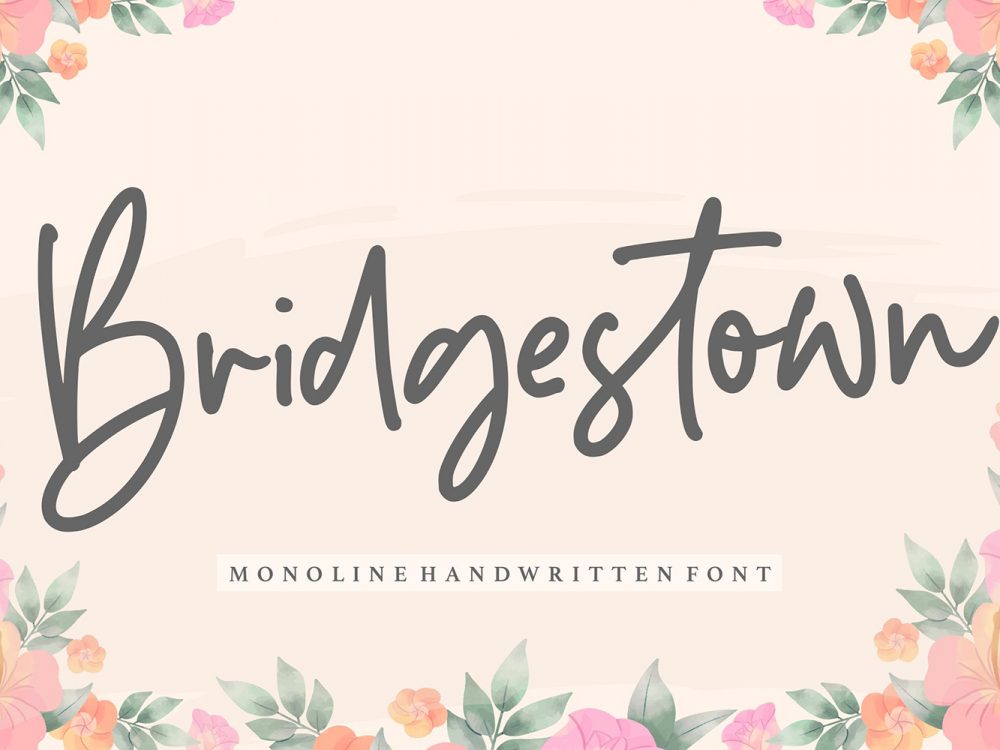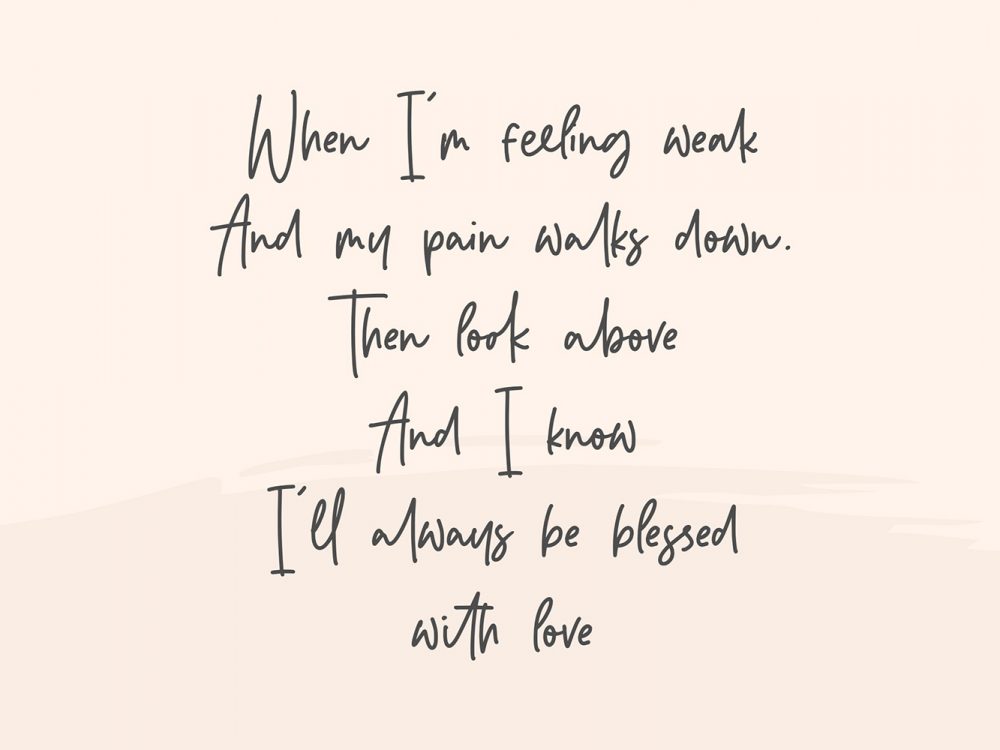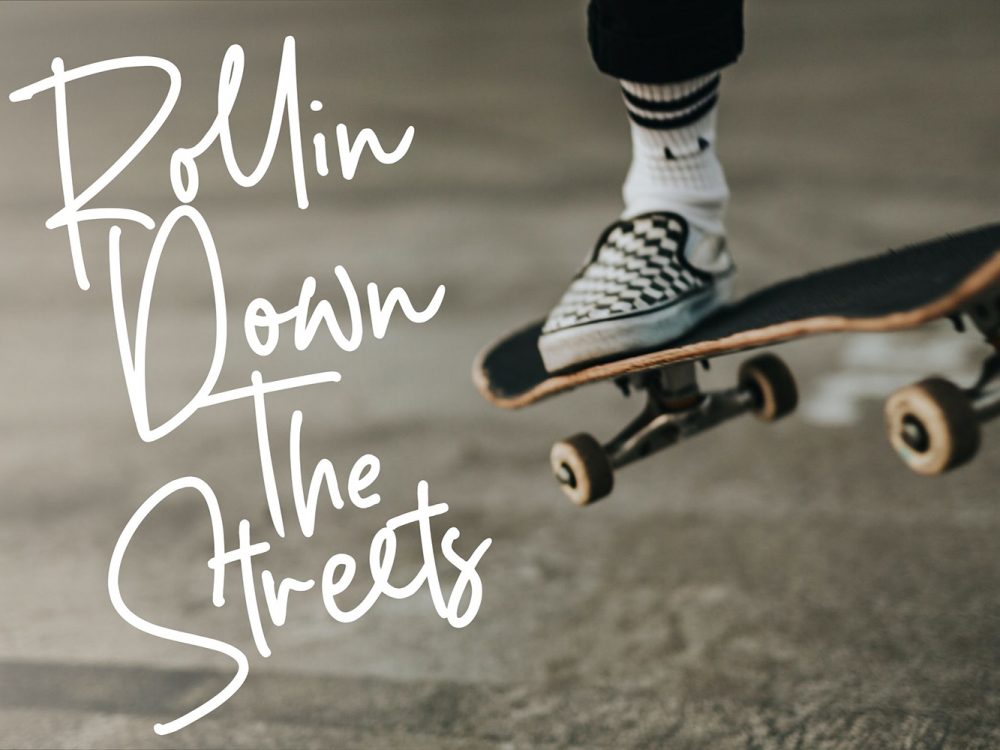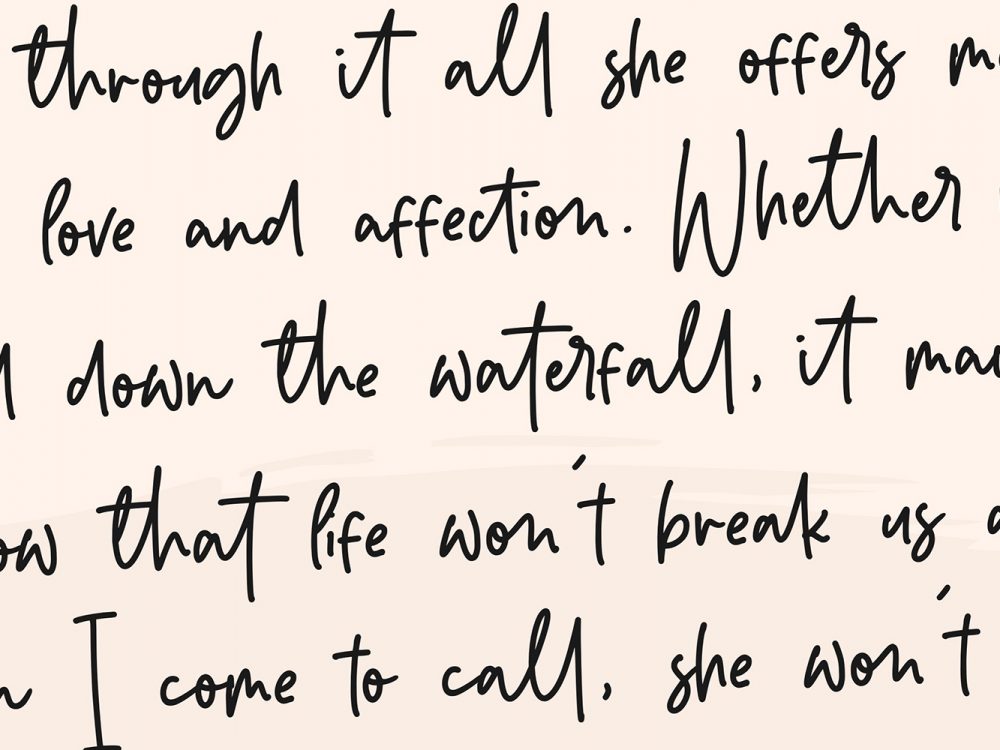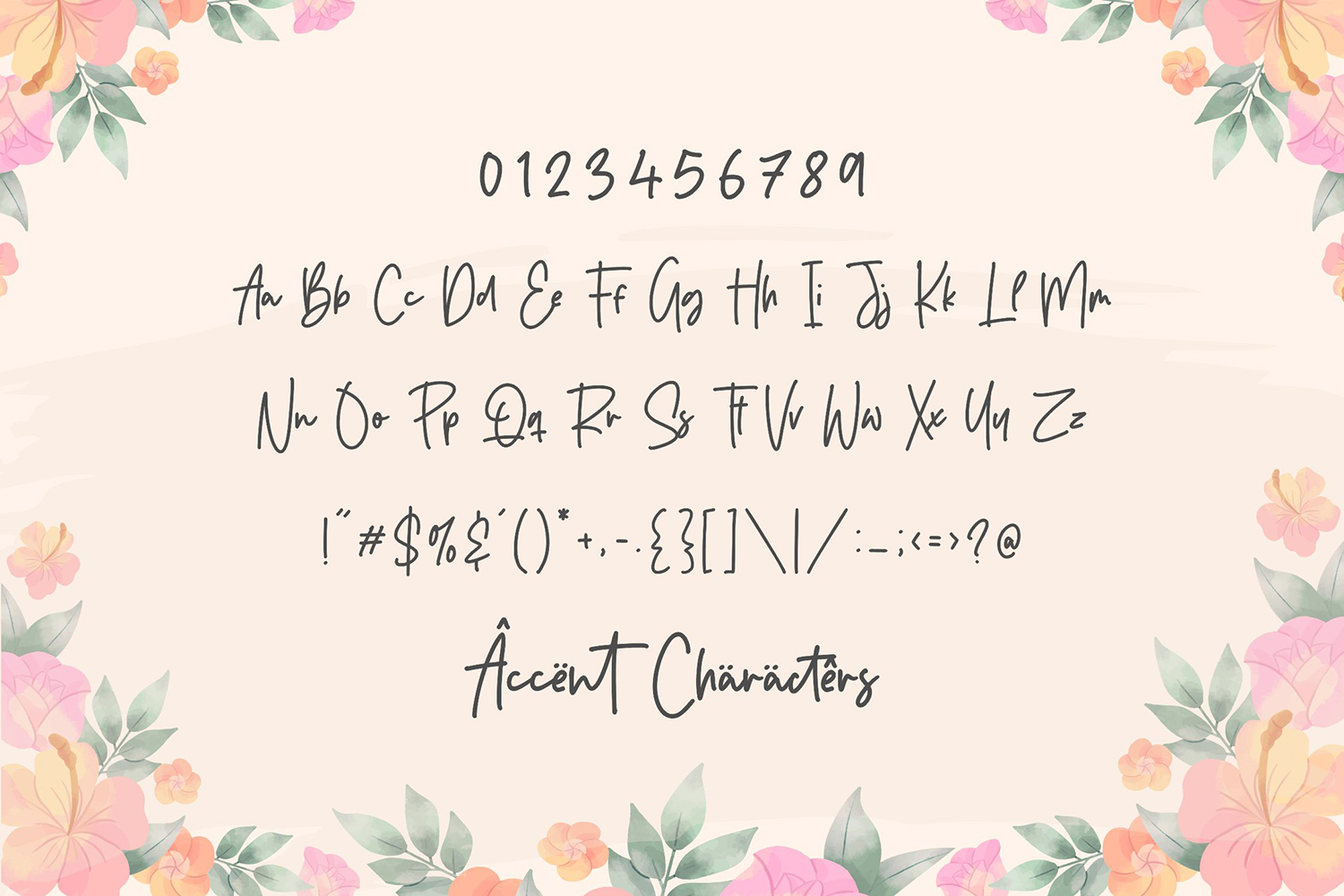
Bridgestown Free Font
Bridgestown Free Font is a handwritten font with an elegant and interesting style. This font is very well suited for creating various projects that require a scriptable modern handwritten font and for raising your professional level. Use this font to create memorable romantic posters, wedding invitations, greeting cards, branding, flyers, t-shirt and pillow prints, and more. If you like it don’t forget to check out the full version.
Author: Balpirick Studio